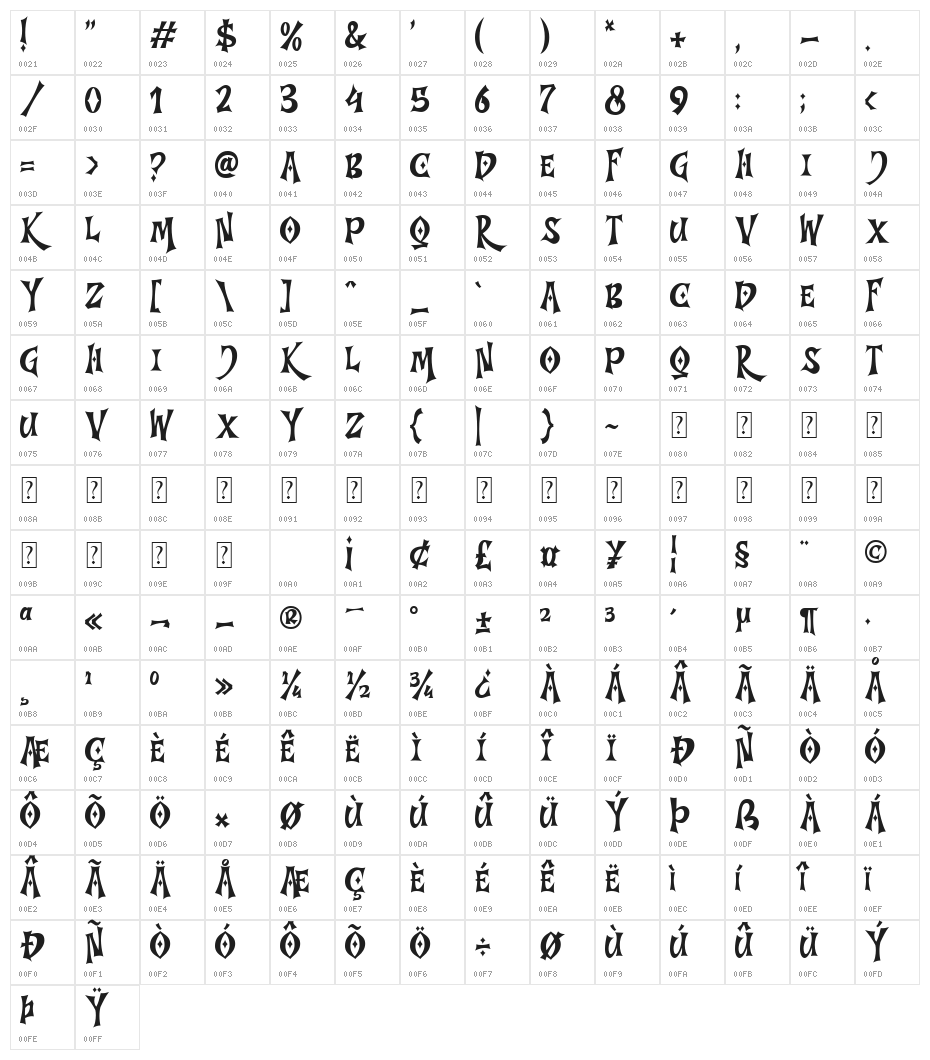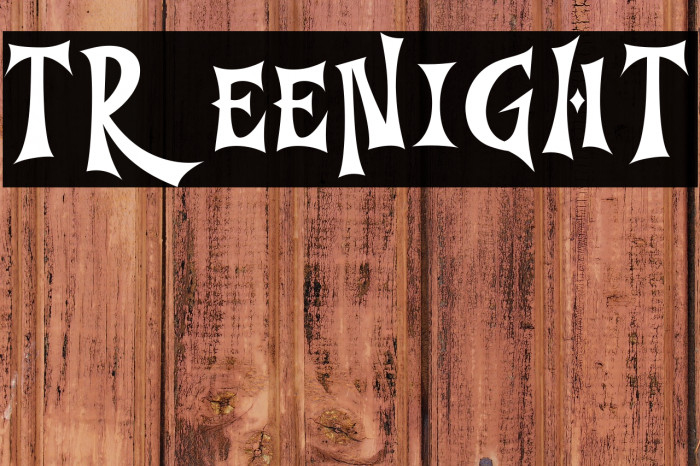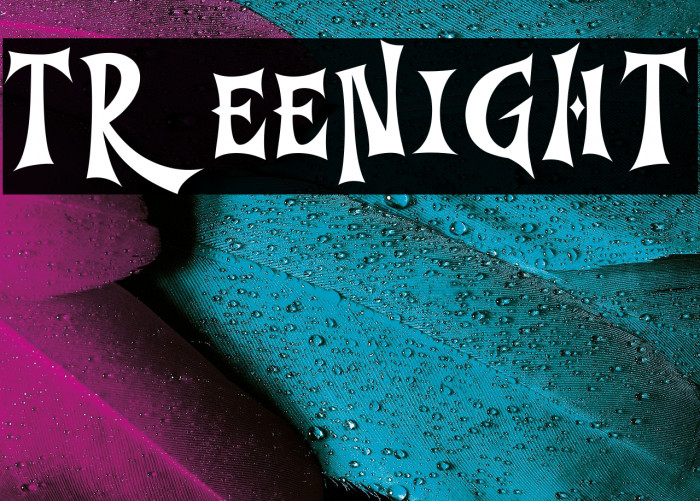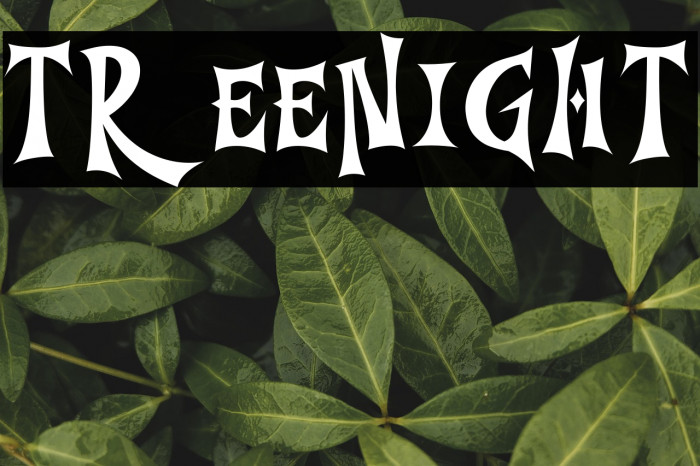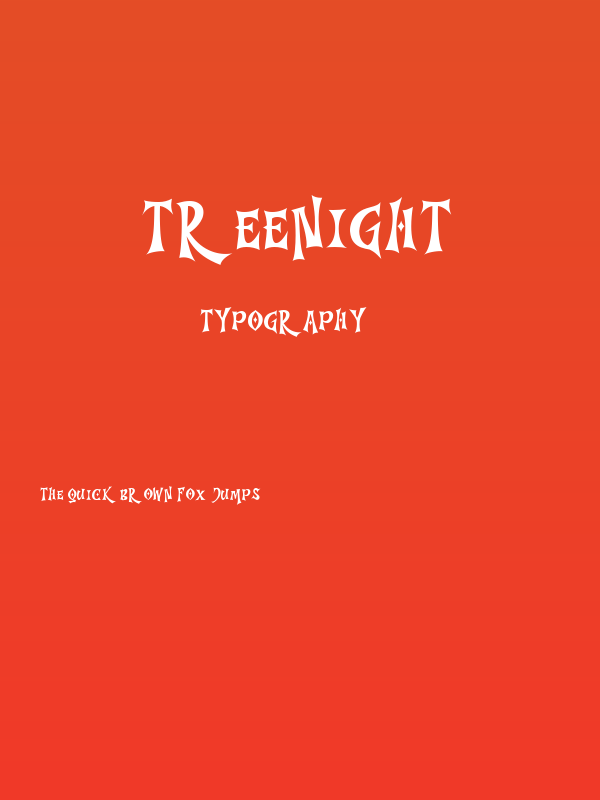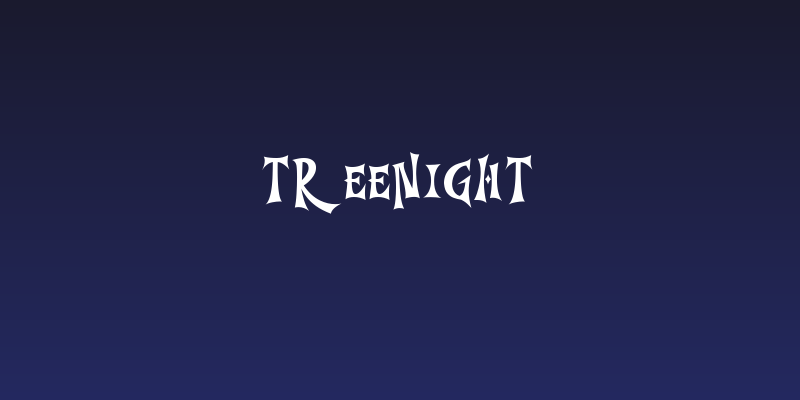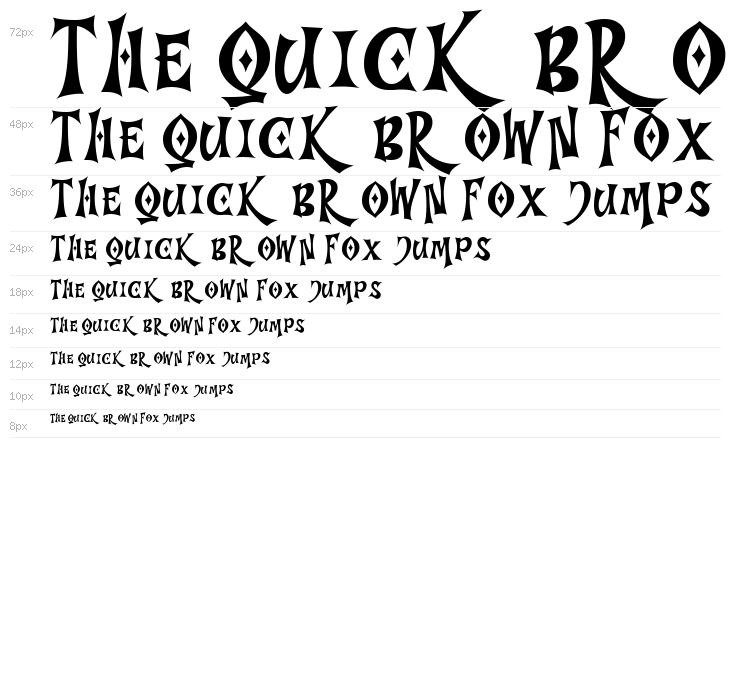
TreeNight Font
TreeNight Description
This font features a bold and dramatic style with sharp, angular edges and a distinct gothic influence. The characters are highly stylized, with exaggerated curves and pointed serifs that give it a unique, edgy appearance. The uppercase and lowercase letters maintain a consistent design theme, while the numbers and special characters complement the overall aesthetic. The font's bold strokes and high contrast make it stand out, ideal for attention-grabbing designs.
| Overall Style | Gothic, Decorative |
| Proposed Projects | Perfect for use in fantasy-themed projects, book covers, posters, and branding that requires a dramatic and unique touch. |